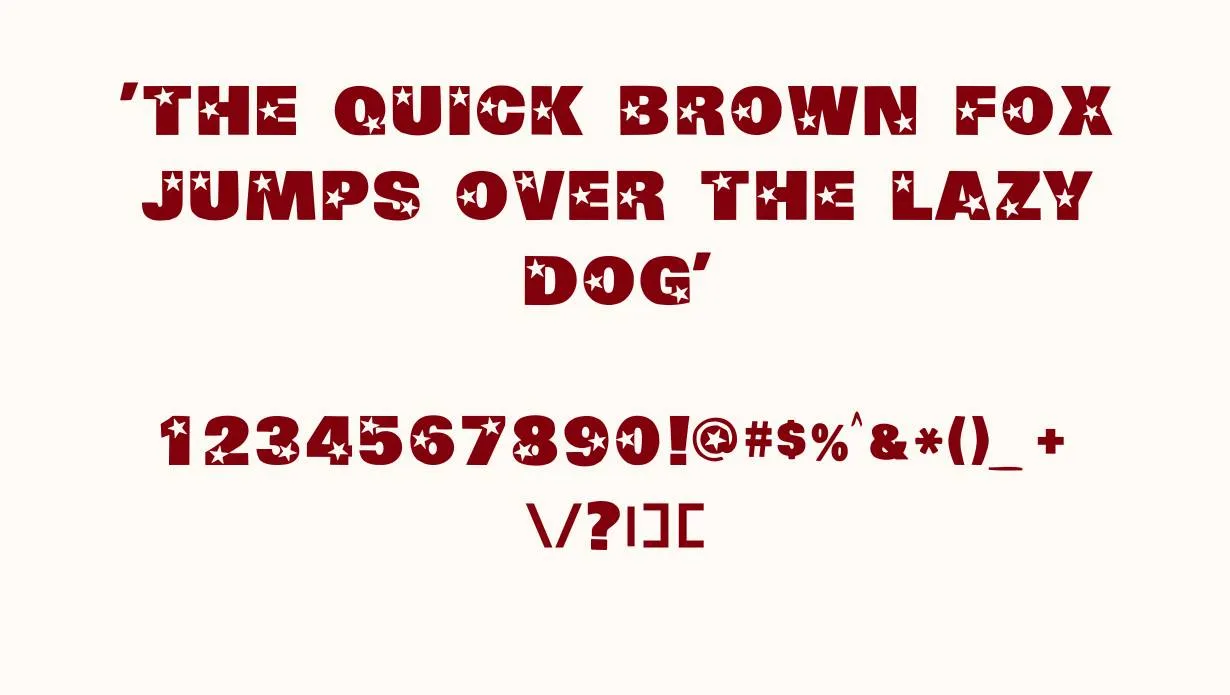
The Politician Font is tailored for creating a formal and official look in your designs, making it ideal for documents, certificates, or any political materials. Its clean and professional characters convey a sense of authority and formality.
| Name | Politician Font |
| Designer | Paul Friedrich |